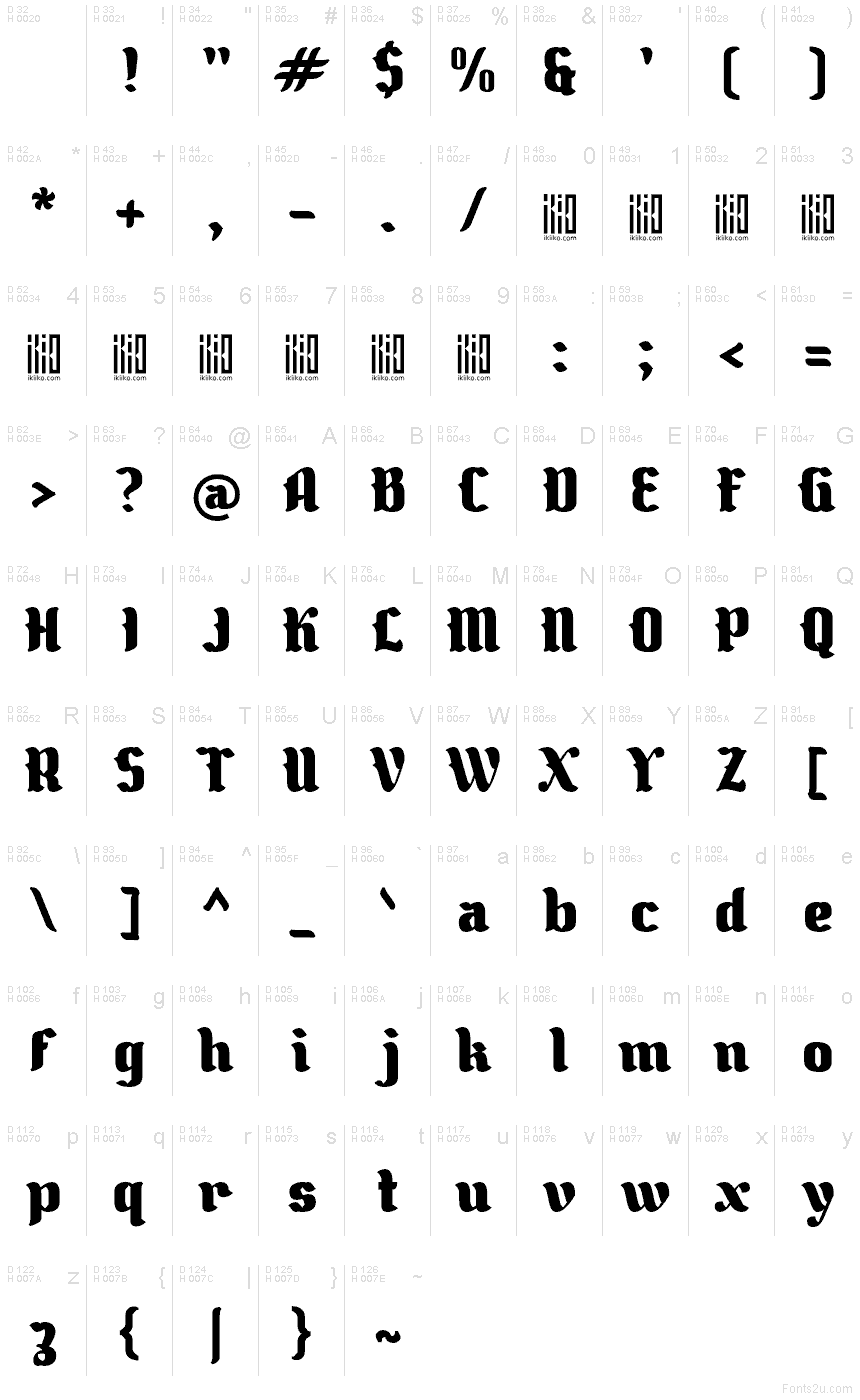
The Black Knight ikiiko.com
The Black Knight font by Ikiiko Type is a free modern gothic typeface. Its thick, inky strokes and softened edges give you that blackletter drama without the stiffness—think armor with a velvet lining. The forms feel weighty yet welcoming, with roomy counters and steady rhythm that keep headlines legible at a glance.
Using The Black Knight, your work gets medieval mood with contemporary clarity. It shines on fantasy game logos, craft beer labels, tattoo-inspired merch, festival posters, YouTube thumbnails, and esports branding. The chunky texture holds up in large titles and bold badges; add a touch of letterspacing for subheads. Pair this free font with a clean geometric sans to keep layouts sharp and balanced.